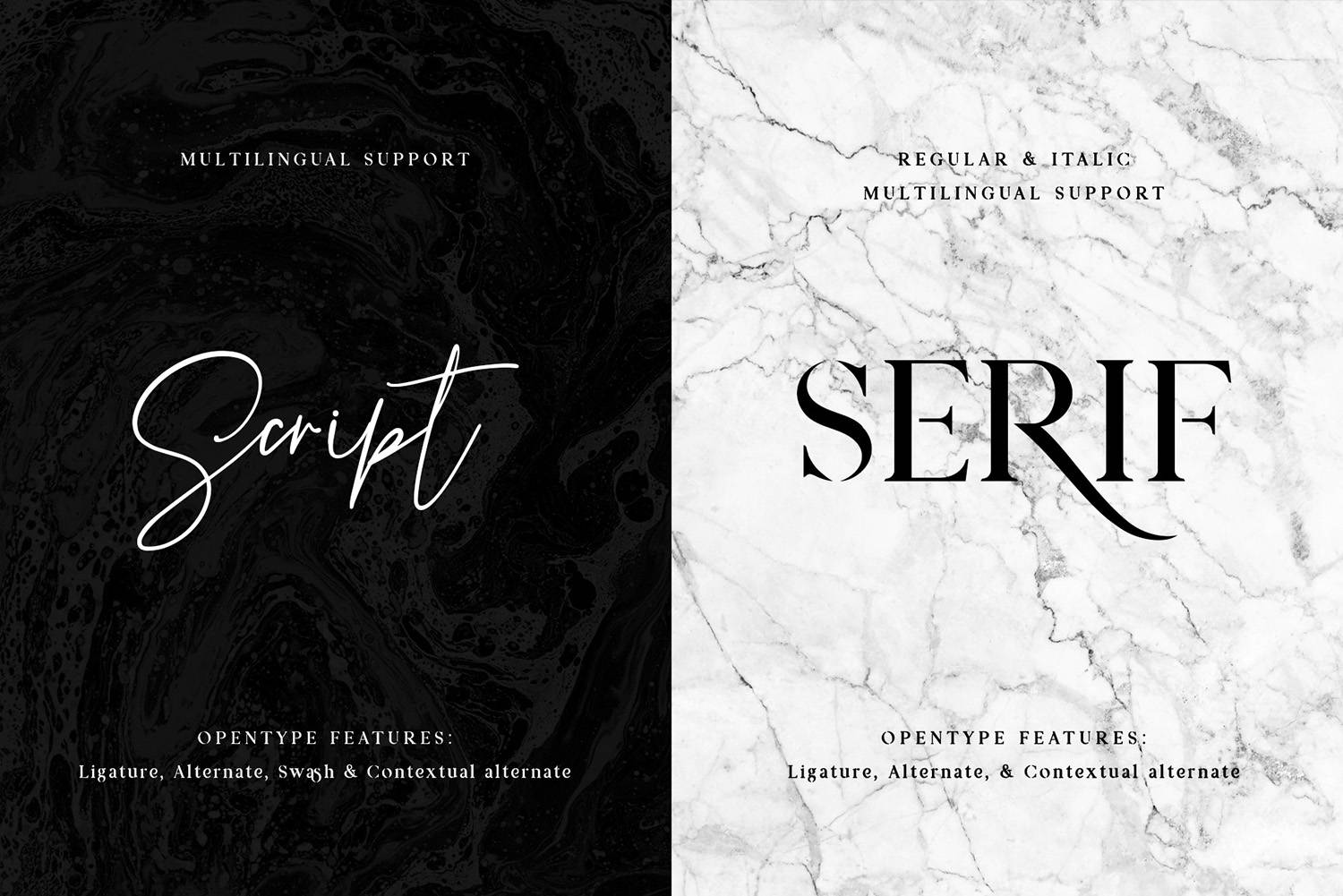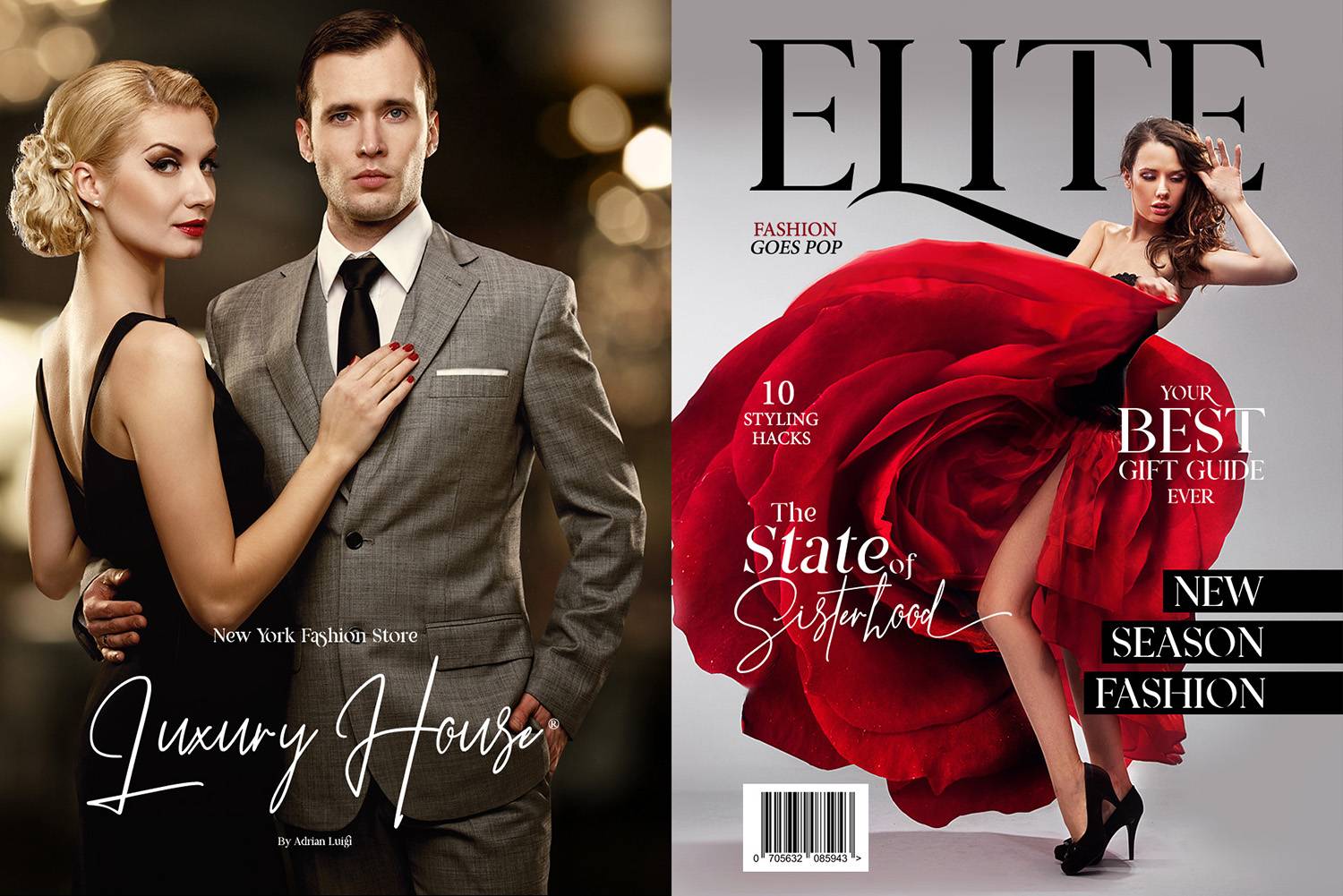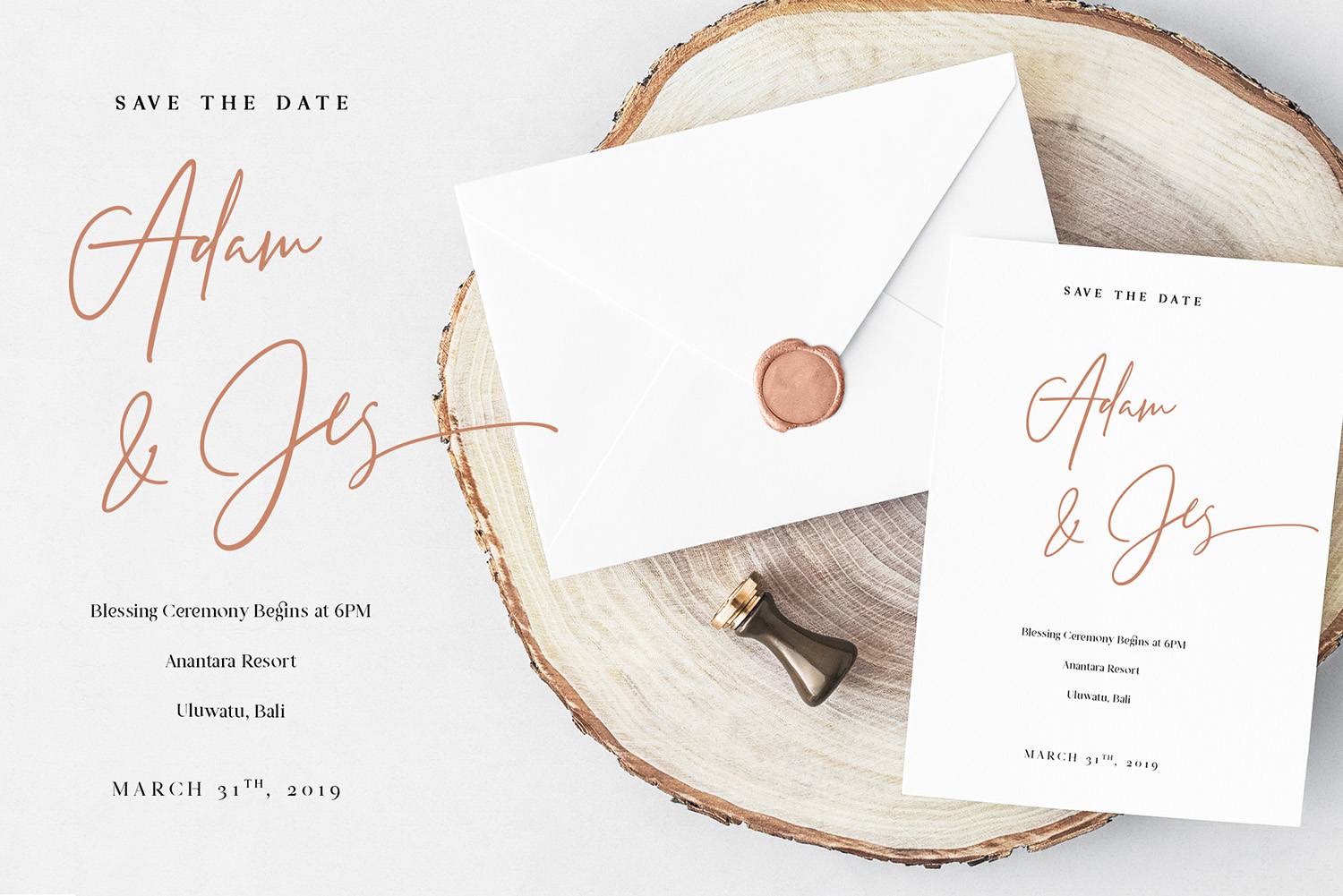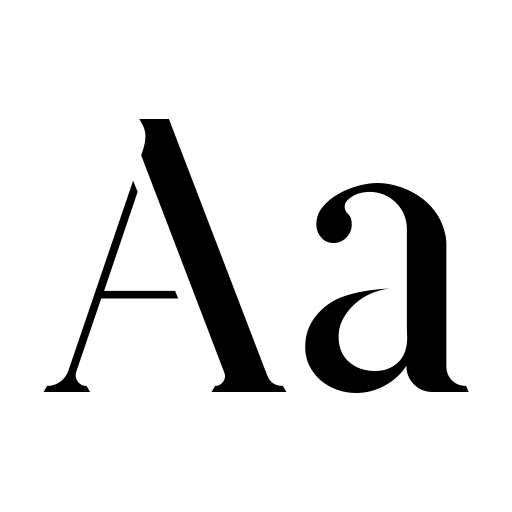
Prestige Signature is an elegant serif font with a high contrast between thick and thin strokes, featuring sharp, refined edges and delicate, bracketed serifs that give it a luxurious and sophisticated feel. Its unique letterforms and subtle calligraphic touches make it ideal for fashion branding, upscale editorial design, and stylish logos where a classic, yet modern look is desired. This font works best in headlines or display uses, providing a polished and distinguished presence.
Prestige Signature Font
About Prestige Signature Font